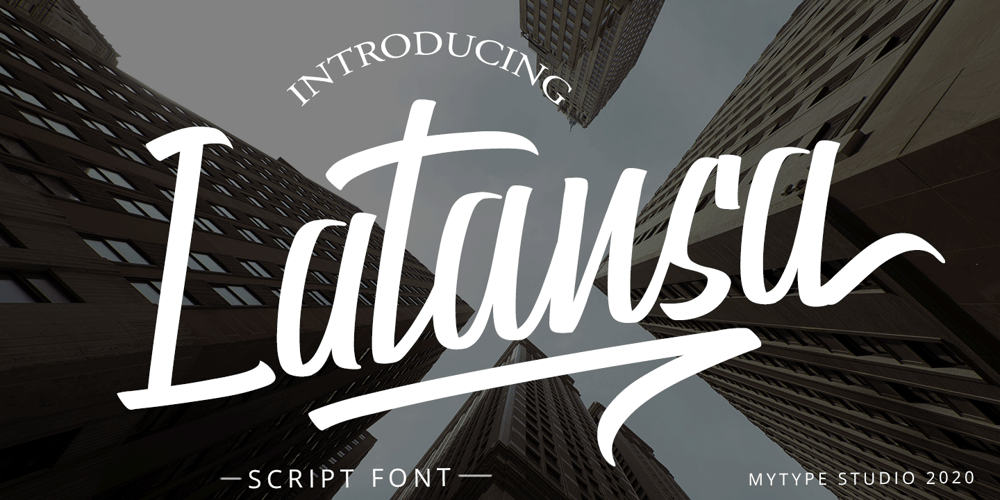
Latansa
Latansa font
Latansa Font Family was designed by Mhd Husaini and published by SimpleType Studios. Latansa contains 1 styles and family package options. Latansa is a script font with a bold, minimalist style, elegant and stylish.This font is great for a wide variety of projects such as branding, invitations, logos, t shirts and anything that requires a handwritten style.Features ligature styistic set 01 stylistic se02 stylistic alternate swash contextual alternate